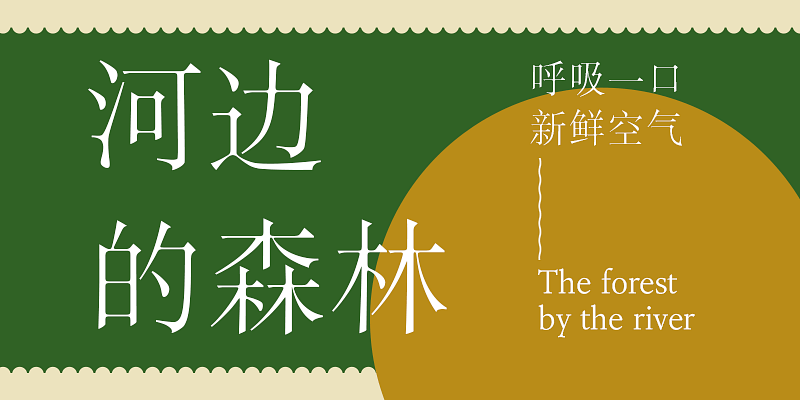
HelloFont ID Dian Song Font Free Download is a sophisticated and graceful Chinese-inspired typeface, designed with fluid brushstroke elements and balanced proportions. Its elegant characters make it perfect for cultural branding, luxury product packaging, event invitations, and editorial design where a combination of tradition and modernity is required.
The HelloFont ID Dian Song Font combines traditional calligraphy with a modern design approach, offering a perfect balance of readability and artistic beauty. The font is ideal for high-end and refined projects, lending an air of elegance and cultural depth to your designs.